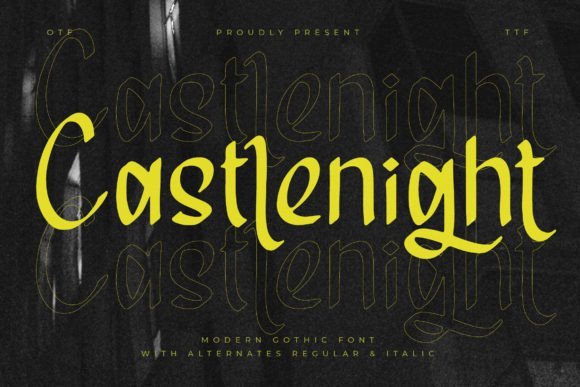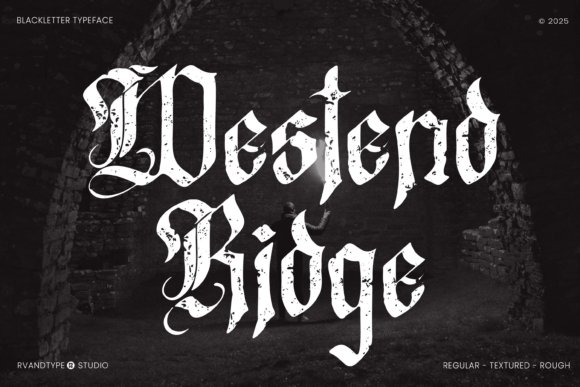
37 Best Gothic Fonts to Give Your Designs a Dark Edge in 2026
There is something undeniably captivating about the dramatic strokes and sharp angles of traditional blackletter typography. Whether you are designing an edgy heavy metal album cover, a vintage-inspired tattoo logo, or a moody streetwear brand aesthetic, finding the right lettering is crucial. In 2026, the demand for striking, historical typography is higher than ever. That is why I have put together this massive roundup of 37 incredible Gothic Fonts. From authentic medieval fonts and Old English typefaces to modern, dark lettering styles, this curated list has everything you need to give your upcoming projects a distinct, unforgettable edge.
1. Westend Ridge Gothic Font
Westend Ridge
Immerse yourself in the timeless allure of Westend Ridge, a remarkable blackletter typeface that brings the majestic elegance of old English tradition into the modern era. When exploring premium Gothic Fonts, this particular design stands out by offering a seamless blend of medieval typography and retro aesthetics. It effortlessly encapsulates the rich history and enchanting mystique inherent in classic blackletter scripts, evoking the meticulous craftsmanship of ancient manuscripts and traditional calligraphy. Whether you are aiming to channel a dark, moody atmosphere or a refined, vintage charm, Westend Ridge delivers a distinctive personality that elevates any creative project.
For designers seeking versatility within the realm of Gothic Fonts, Westend Ridge is an alluring choice that adds instant antiquity and classic sophistication to your layouts. It performs exceptionally well in high-end branding, vintage-inspired apparel, artisanal product packaging, and editorial headers where a touch of old-school craftsmanship is required. The stylish retro vibes ensure that it pairs beautifully with ornate illustrations or minimalist backdrops alike, making it an essential tool for creators looking to bridge the gap between historic lettering and contemporary graphic design.
2. Castlenight Gothic Font
Castlenight
Castlenight emerges as a quintessential modern blackletter typeface, masterfully redefining the boundaries of traditional dark lettering for today’s design landscape. Unlike highly ornate historical scripts, this fresh take on Gothic Fonts provides a sleek, contemporary edge while still retaining the bold, dramatic flair that makes the style so enduring. Its meticulously crafted letterforms strike a perfect balance between legibility and artistic expression, allowing creators to inject a powerful, authoritative voice into their visual narratives without sacrificing modern readability.
The versatility of this contemporary gothic typography makes it an indispensable asset across a diverse array of commercial applications. Castlenight is perfectly suited for striking logos, high-impact branding projects, and premium product packaging. It translates beautifully onto tangible merchandise like homewares, t-shirts, and shopping bags, while also lending an upscale, edgy aesthetic to book covers, event invitations, and typography-driven posters. If you are exploring Gothic Fonts that can seamlessly transition from a vintage craft beer label to a sleek modern fashion watermark, Castlenight delivers an unforgettable visual punch.
3. Blackrend Gothic Font
Blackrend
Blackrend is a bold and striking display typeface designed specifically to bring a powerful, uncompromising edge to your design projects. Featuring razor-sharp edges, dominant heavy strokes, and a profoundly classic medieval feel, it stands out as a titan among Gothic Fonts. This typeface instantly creates a moody, atmospheric tone, especially when set against distressed or grungy backgrounds. Its unapologetically dramatic visuals capture the essence of historic dark typography, making it an exceptional narrative display tool for designers looking to inject a deep sense of heritage, mystery, and intensity into their creative work.
Equipped with a full set of uppercase and lowercase characters, numbers, and punctuation, Blackrend is remarkably versatile for such an intricate style. It is an absolute powerhouse for themed branding, particularly excelling in identities for craft breweries, historic-themed merchandise, and bands in search of that iconic heavy metal or tattoo-style aesthetic. When you need Gothic Fonts that deliver maximum impact for bold titles, album covers, apparel graphics, or vintage logos, Blackrend provides a dark, premium touch. Its strong, legible forms ensure your message is not only seen but felt, granting your designs a timeless, unforgettable authority.
4. Brother Gothic Gothic Font
Brother Gothic
Introducing the Brother Gothic design, a striking typographic choice that brilliantly merges the elaborate elegance of a Victorian typeface with a rugged, biker-inspired edge. When evaluating top-tier gothic fonts for contemporary projects, this specific typeface stands out due to its wildly versatile nature. The ornate lettering captures the dark, historical essence of traditional blackletter fonts while injecting a modern, rebellious spirit that instantly demands the viewer’s attention.
Ideal for a broad spectrum of creative endeavors, this typeface excels in tattoo shop branding, vintage apparel designs, and edgy album artwork. If you are searching for versatile gothic fonts that command the page without sacrificing legibility, the Brother Gothic style is a premier choice. Its masterful balance of classic calligraphy and aggressive motorcycle culture aesthetics ensures your digital and print media projects possess a distinct, unforgettable identity.
5. Queen of Hearts Gothic Font
Queen of Hearts
Unveiling Queen of Hearts, a magnificently intricate typeface deeply entrenched in classical Roman flair and dark medieval aesthetics. Among premium gothic fonts, this charismatic design stands out by seamlessly balancing a boldly masculine presence with delicate, refined elegance. The typography draws deep inspiration from timeless historical manuscripts, masterfully marrying sharp, pointed corners with a highly harmonious blend of straight and gracefully curved lines. It perfectly encapsulates the moody sophistication that designers actively seek when exploring traditional blackletter fonts.